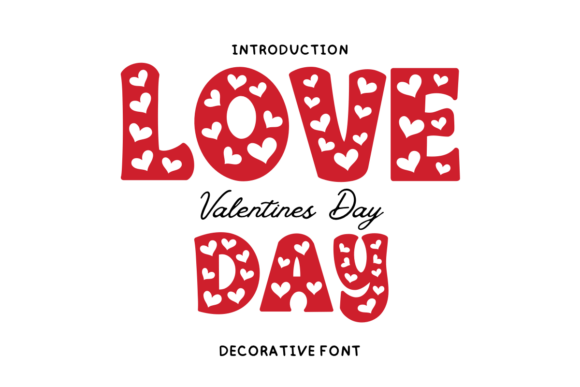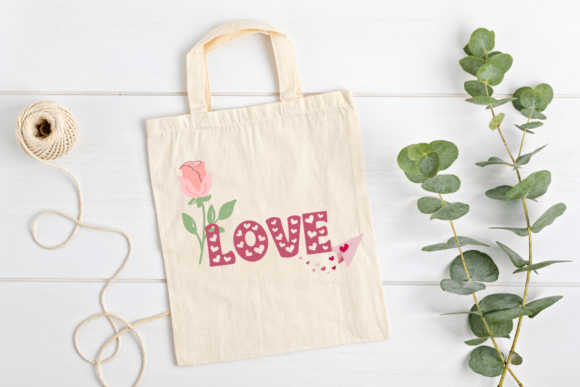
Valentines Day Font
Ignite affection with the Valentine’s Day Handwritten Font, inviting charm, and personality with every letter. Ideal for personal diary entries, heartfelt notes, or crafting the perfect greeting card, this font makes each sentiment sincere. Not limited to writing alone, utilize this versatile font for various design creations from captivating banners to engaging social media posts. Enliven your stationery, create eye-catching mug art, design unique t-shirts, or draw attention to your cards. With the Valentine’s Day Handwritten Font, every design becomes an expression of love and endearment.